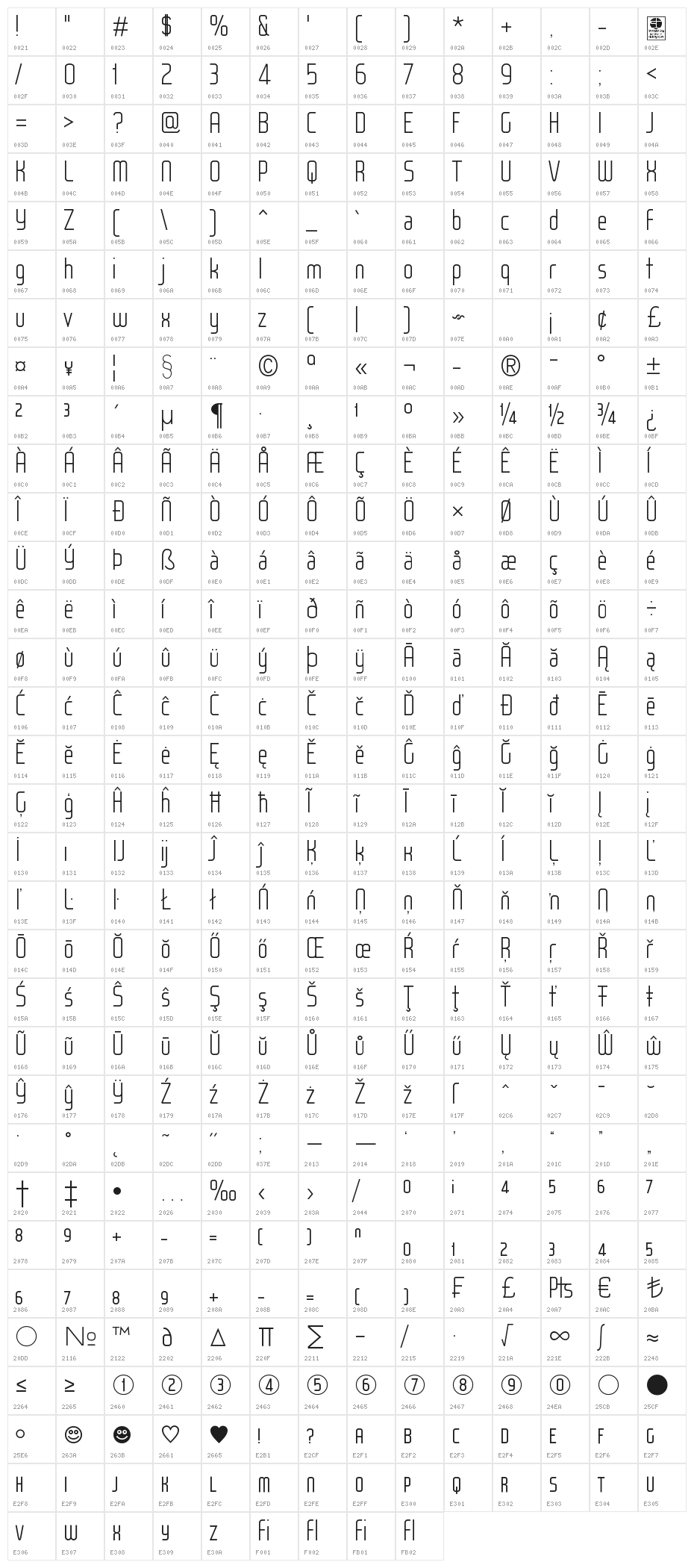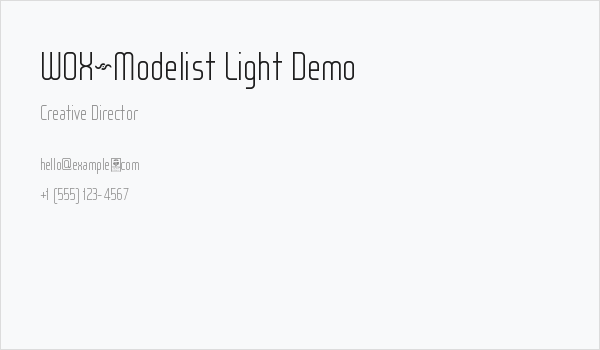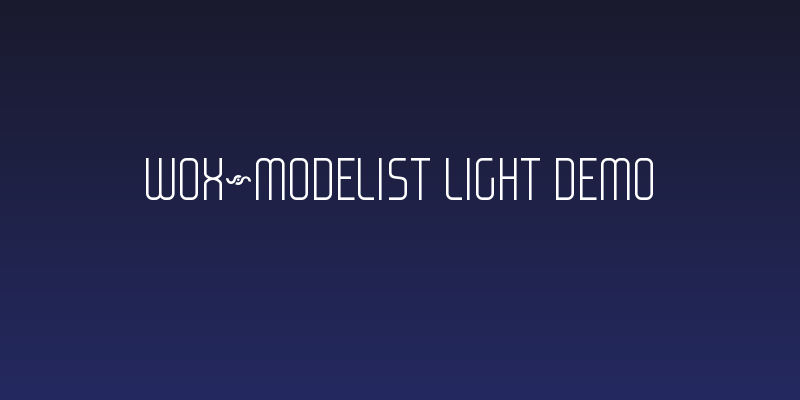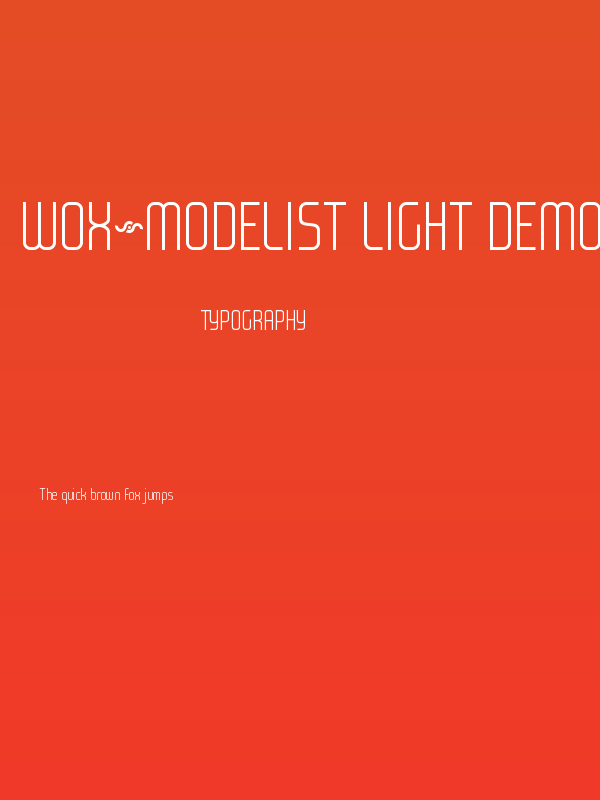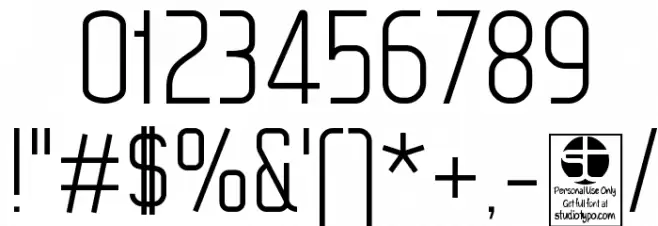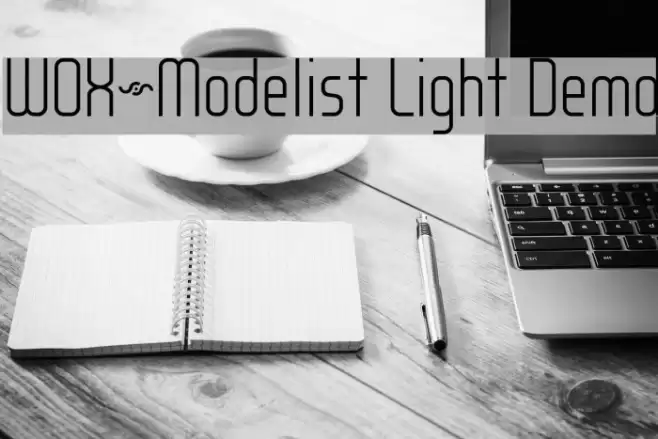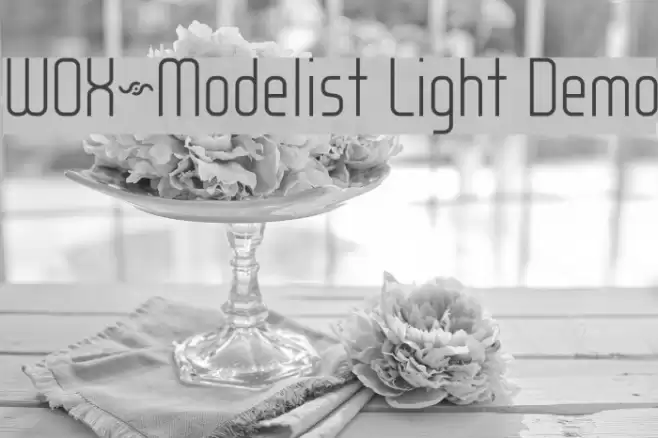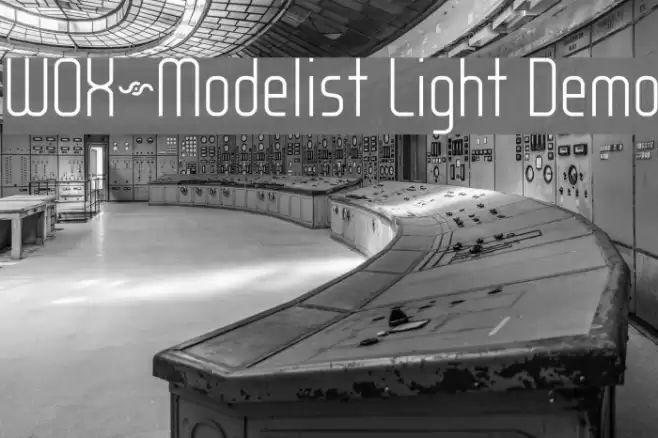
WOX~Modelist Light Demo Font
WOX~Modelist Light Demo Description
This font features a clean and modern design with a geometric structure. The characters are tall and narrow, giving it a sleek and contemporary appearance. The strokes are consistent in width, contributing to a uniform and minimalist aesthetic. The uppercase and lowercase letters are well-balanced, with rounded edges that soften the overall look. The numerals and special characters maintain the same geometric style, ensuring cohesion across all elements. This font is ideal for projects that require a modern and professional touch, such as branding, advertising, and digital interfaces.
| Width | Condensed |
| Use Case | Headlines, Logos, Digital Interfaces |
| Proposed Projects | Ideal for branding, advertising, digital interfaces, and modern design projects. |